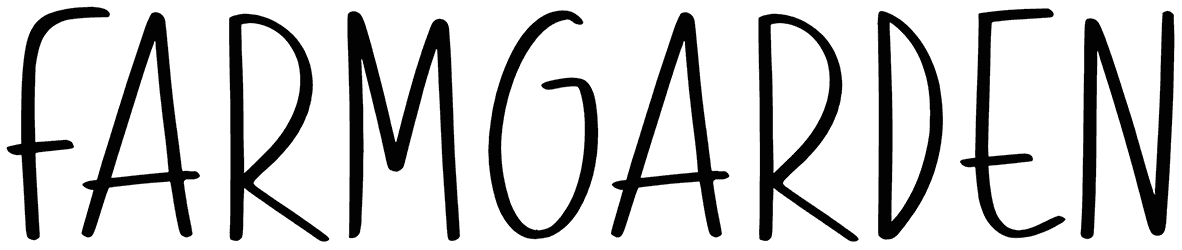
Farmgarden Font
It’s not easy to adorn a design that can impress all of your audiences, but when you pick up a minimal handwritten font for your words, the result can be engaging for a lot of visitors. Farmgarden font with its natural characters can get you there. This farmhouse font doesn’t support lowercase letters, yet it will be ravishing for a garden sign, café board, or the like.